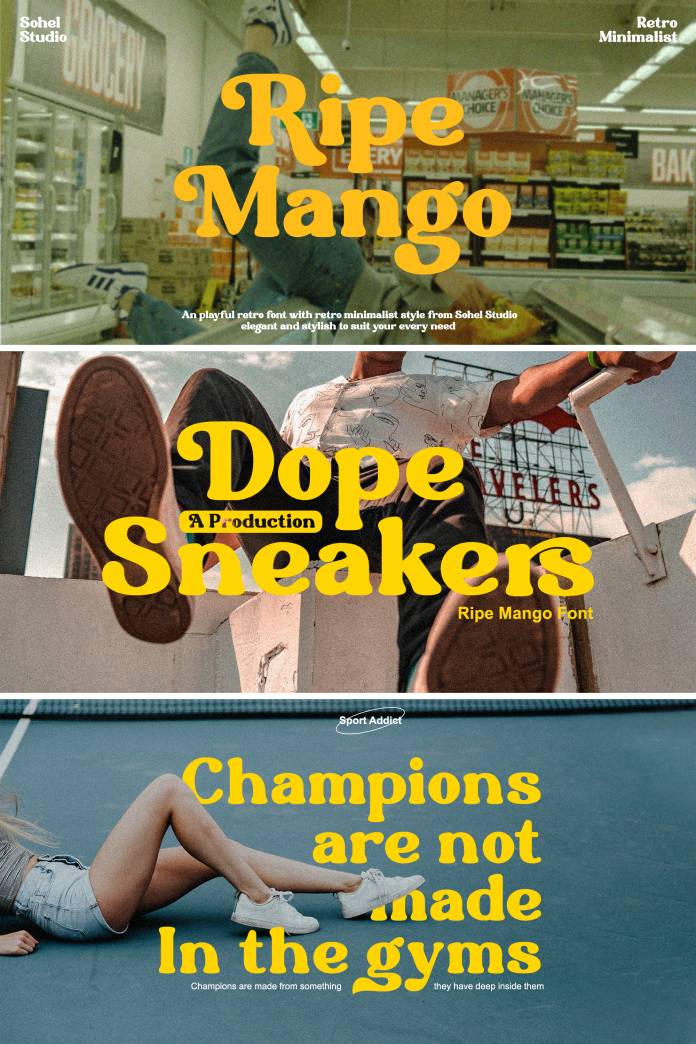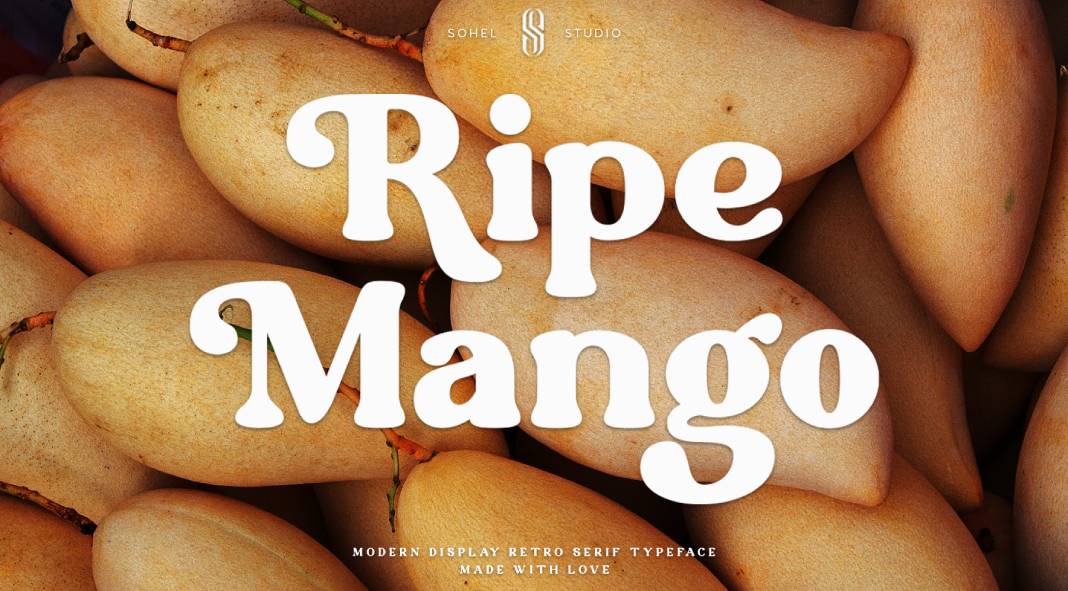
The Ripe Mango font, published by Sohel Studio, is a remarkable retro display serif font that effortlessly exudes a classic charm and bold character. This typeface is a true gem for designers and creatives seeking to add a touch of vintage elegance to their projects.
One of the standout features of Ripe Mango is its design, which draws inspiration from retro styles while maintaining a unique and contemporary appeal. The font captures the essence of a bygone era and successfully evokes a sense of the past, making it a versatile choice for various design applications.
The meticulous craftsmanship behind each letter is evident in Ripe Mango. The careful attention to detail and proportion results in a visually appealing and cohesive typeface. The elegant curves and sharp serifs add a sense of sophistication and character to the font, setting it apart from other retro-inspired options.
Ripe Mango’s versatility is evident in its ability to enhance a wide range of design projects. Whether it’s posters, logos, packaging, or promotional materials, this font effortlessly brings a vintage feel to the forefront. It creates a nostalgic and refined atmosphere, making it an excellent choice for brands or projects that aim to captivate an audience with a sense of timelessness.
One of the notable strengths of Ripe Mango is its legibility. Despite its retro stylings, the font remains highly readable, ensuring that your message is conveyed clearly. The bold and distinct letterforms make a strong statement while maintaining a sense of elegance.
In conclusion, the Ripe Mango font by Sohel Studio is a captivating and meticulously designed typeface that flawlessly captures the essence of retro aesthetics. Its elegant charm, attention to detail, and bold character make it an excellent choice for projects requiring a vintage feel. Whether you’re designing a poster, logo, or packaging, Ripe Mango will undoubtedly add a nostalgic and sophisticated touch to your creations.